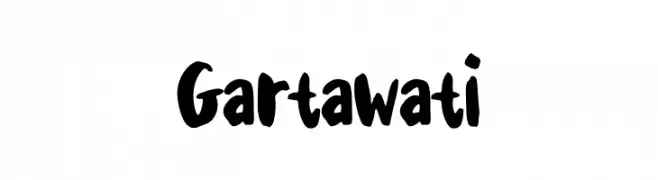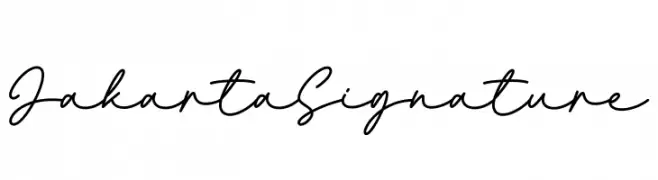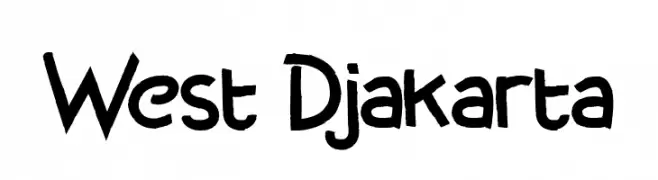
A bold, italic, modern font with smooth curves and a dynamic slant.
A modern, rounded sans-serif font with excellent readability.
A sleek, light, and italic font with a modern and elegant style.
A sleek, modern italic font with a clean and elegant design.
A clean, modern sans-serif font with medium weight and balanced spacing.
A clean, minimalist font with uniform stroke width and rounded edges.
A diverse set of heart designs ranging from simple outlines to intricate patterns.
A bold, geometric font with a modern and impactful design.
A futuristic, geometric font with rounded edges and uniform strokes.
A classic, elegant script font with flowing, cursive letterforms.
A playful, handwritten font with dynamic and flowing letterforms.
A bold, distressed font with a rugged, grunge aesthetic.
A rugged, distressed serif font with a bold, vintage appearance.
A playful, cursive handwritten font with smooth, flowing lines.
A playful font made entirely of heart shapes, perfect for romantic or whimsical designs.
A bold, decorative font with a unique checkered pattern.
A bold, modern sans-serif font with clean, geometric lines.
A clean, modern sans-serif font with a geometric structure and minimalist aesthetic.
A bold, geometric sans-serif font with a modern and minimalistic style.
A modern, geometric sans-serif font with a clean and professional appearance.
A bold, geometric sans-serif font with strong lines and high contrast.
A bold, geometric typeface with uniform strokes and a modern aesthetic.
A thin, minimalist font with clean lines and balanced spacing.
A modern, geometric sans-serif font with clean lines and balanced proportions.
A bold, playful font with thick strokes and a quirky style.
A bold, brush-style font with dynamic, hand-painted strokes.
A bold, decorative font with layered, rounded characters and circular accents.
A bold, decorative font with intricate, three-dimensional detailing.